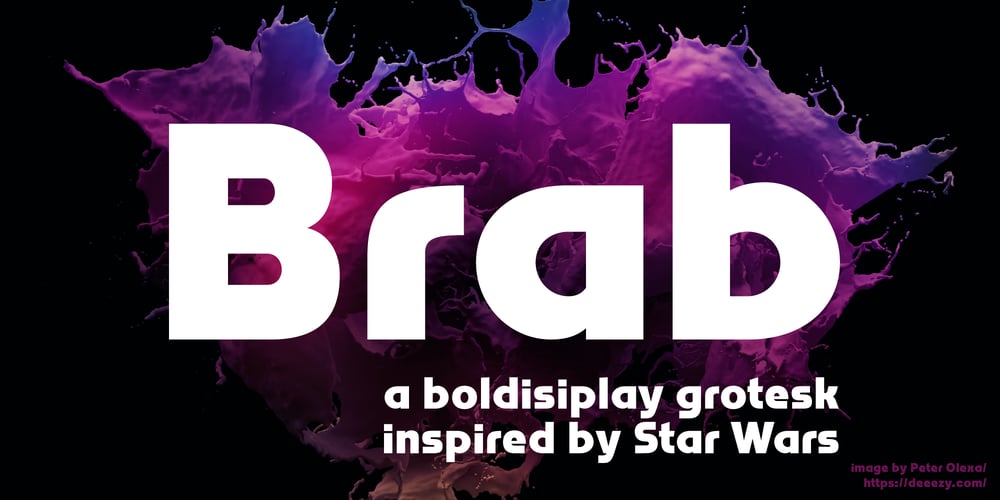
Brab
Brab font
Brab Font Family was designed by Vasil Stanev and published by VSF. Brab contains 1 styles and family package options. A bold grotesque typeface in the best traditions of the Star Wars logo. It has clean geometric lines, a humnaist character, it combines a tech feeling with a friendly organic feeling. Will work excellently as a white text on a busy background.